If you’re looking to combine bold impact with classic character, using modern blackletter font styles might be exactly what you need. These fonts blend the sharp, dramatic flair of traditional blackletter with clean and updated details.
In this article, we’ll dive into selected modern blackletter fonts that balance gothic intensity with contemporary style, helping your designs radiate confidence and originality.
Key Takeaways:
- Modern blackletter fonts blend gothic tradition with contemporary design.
- These fonts work well across various mediums, branding, packaging, and more, thanks to their strong visual impact and unique character.
16 Chosen Modern Blackletter Font Styles
Modern blackletter fonts walk the line between tradition and rebellion. Here are the styles that do it best.
1. Browking
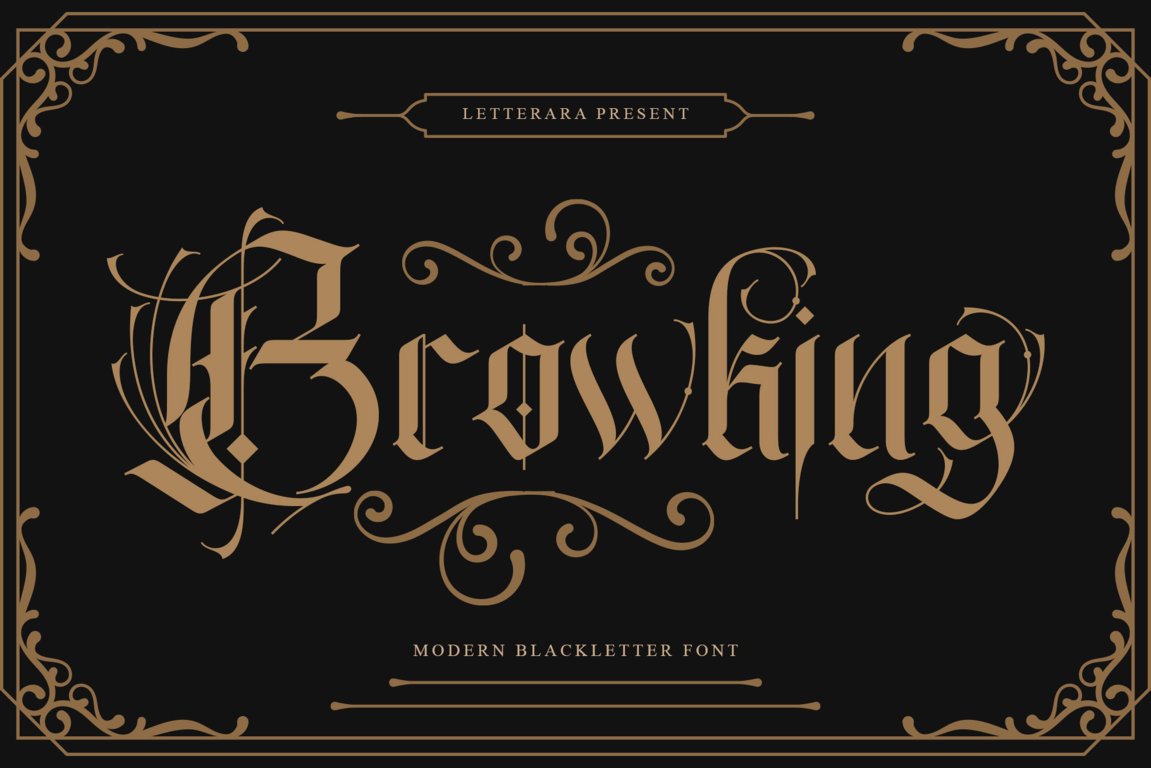
When your design calls for confident energy, this font answers loud and clear. Its bold, unique letterforms bring a striking and distinct touch to any creative work that needs strong typography for a powerful statement.
2. Serath
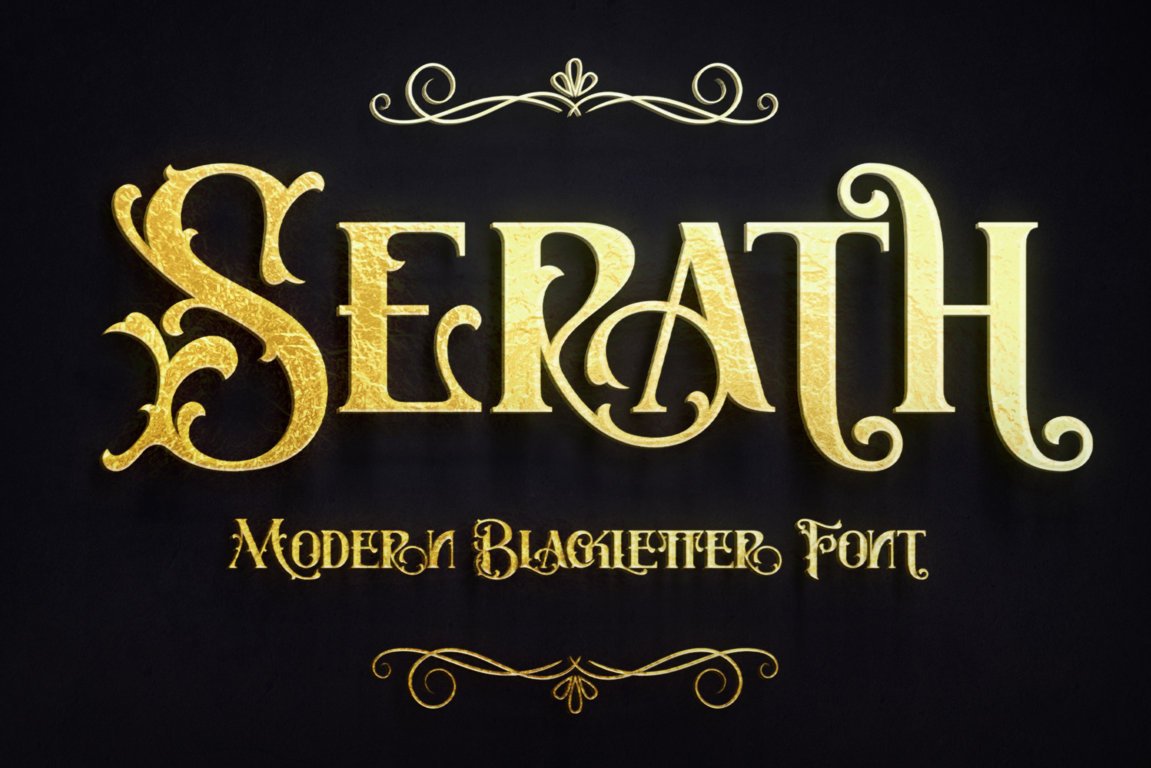
If you own a coffee shop or run a creative brand, Serath is the perfect modern blackletter typeface to make a bold and stylish statement. Its combination of power and elegance commands attention to your design.
3. Higher Jump
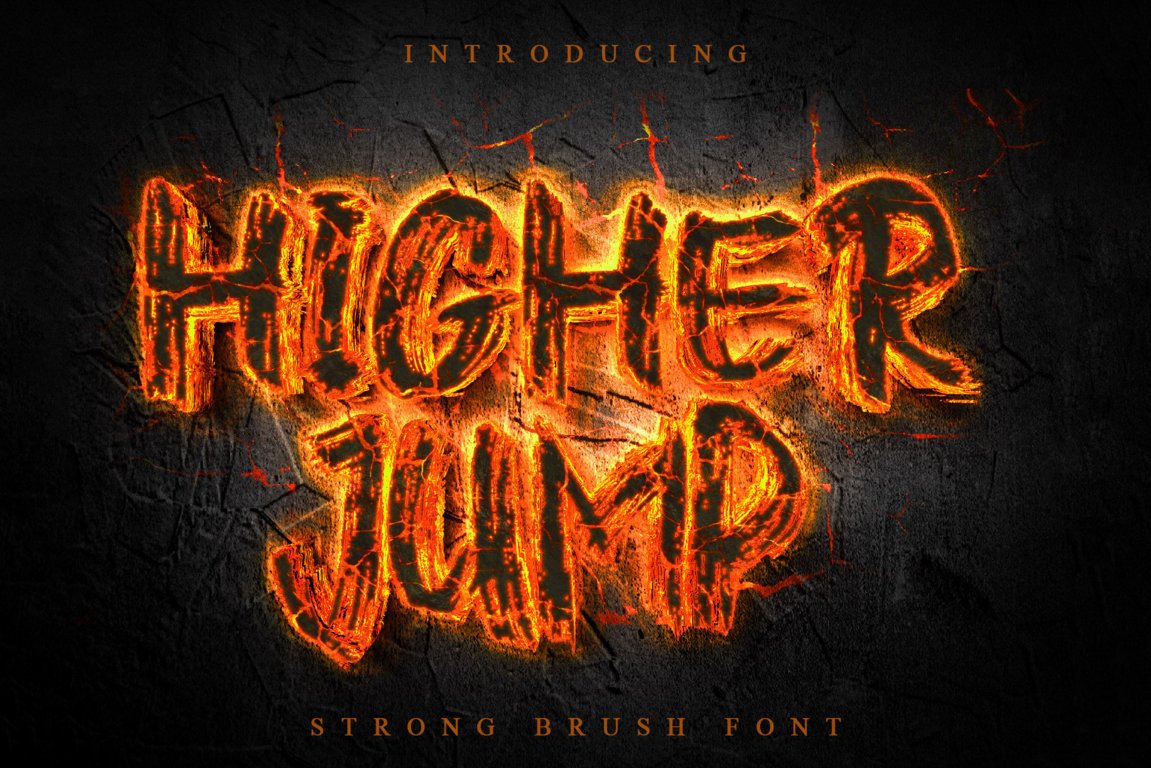
Inspired by natural dry brush strokes, this font brings raw energy and effortless style to your designs. Every curve is full of character, perfect for projects that need a strong and fiery touch.
4. Crowen Zero
Crowen Zero isn’t just a font; it’s a bold statement. Inspired by gothic beauty and raw power, every curve is sharp and attention-grabbing. It’s perfect for designs that need a dark and striking edge, suitable for posters, branding, or album covers.
5. Simbiot
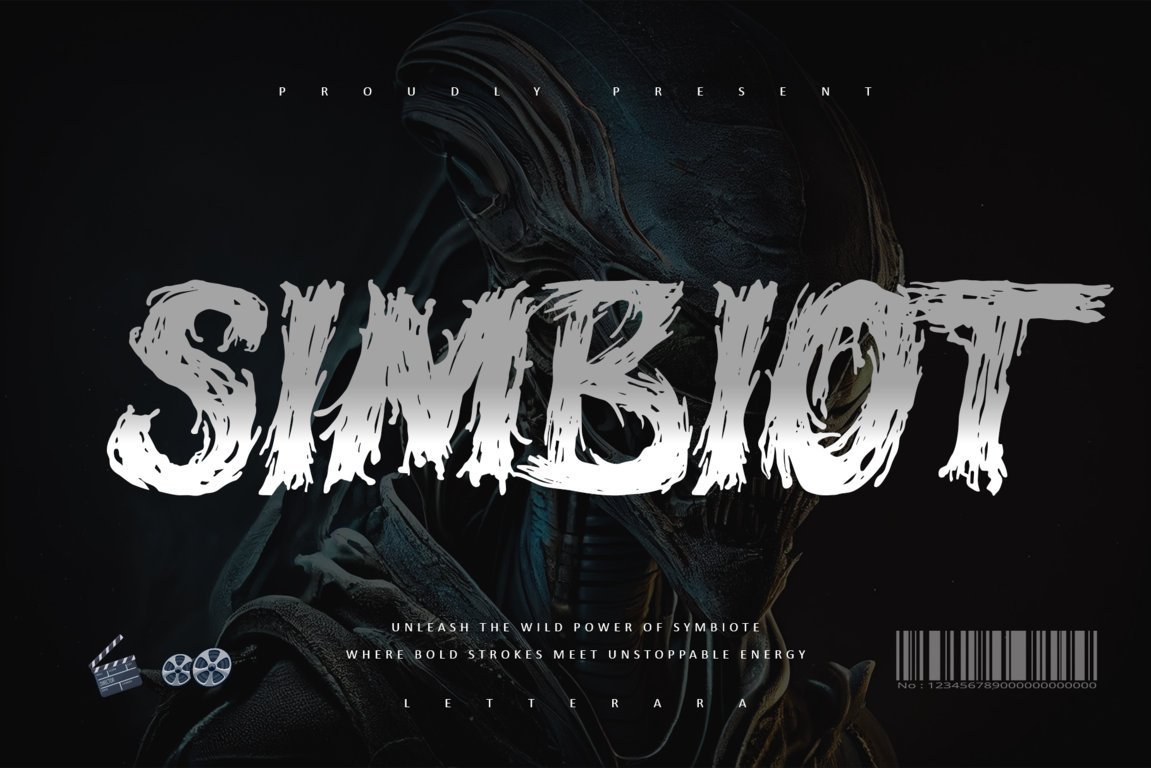
Simbiot is designed to bring bold energy through thick and textured strokes to your work. With its dynamic style letterforms, this font adds a daring edge that brings movement and impact, making your designs feel alive and full of character.
6. Black Dreams
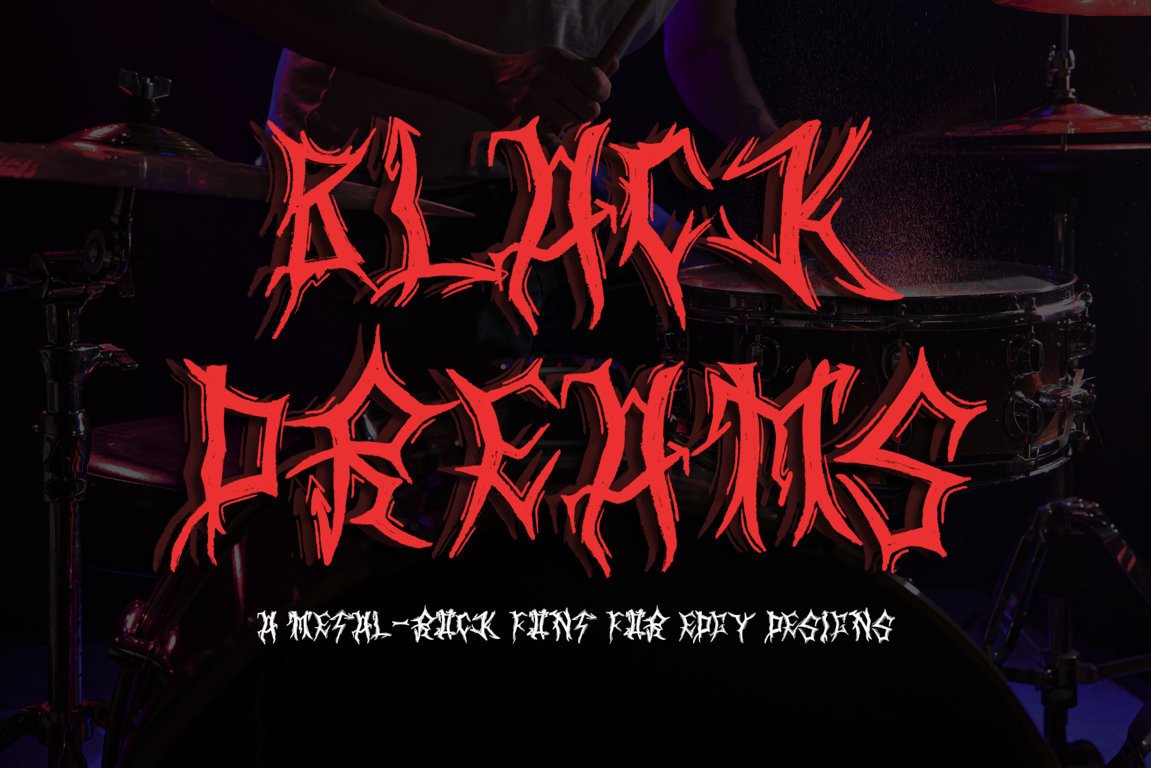
Black Dreams is an edgy, powerful modern blackletter font that captures the unadulterated power of heavy metal. With rugged textures and striking letterforms, it’s built for album covers, band tees, posters, and anything that needs a rebellious attitude.
7. Dreadthorn
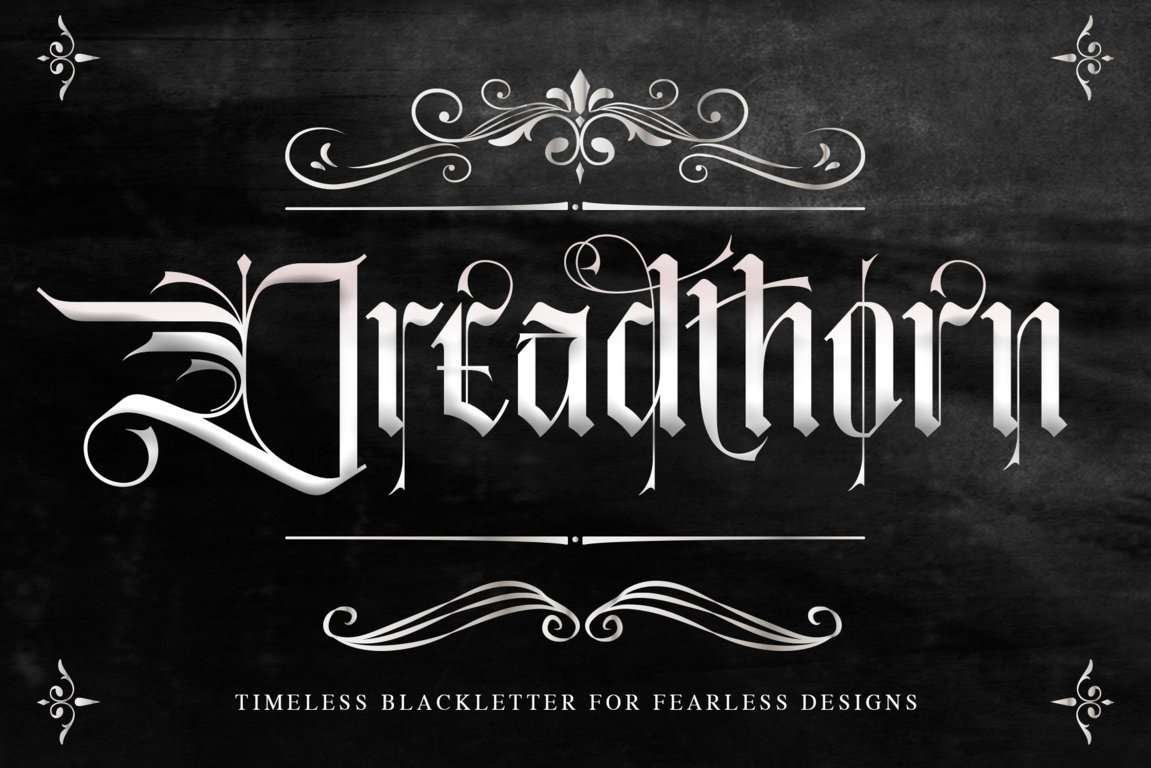
Dreadthorn is a blackletter modern gothic font with ferocious style and jagged strokes. This typeface is able to make your album covers, dark branding, or bold titles unforgettable and powerfully elegant.
8. Dark Majesty
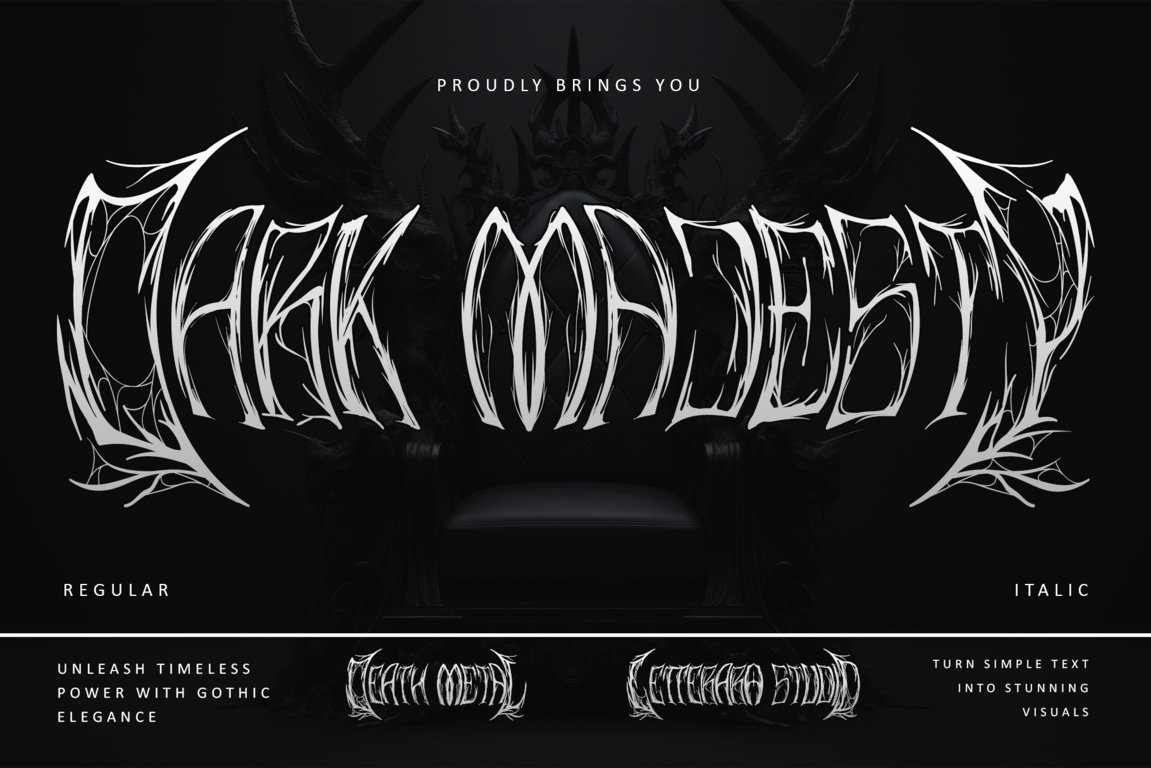
This death metal blackletter font is perfect for adding a touch of darkness and dominance to your design. Built with raw power and gothic style, it features razor-sharp edges and dramatic strokes that bring intense energy to every project.
9. Metalico
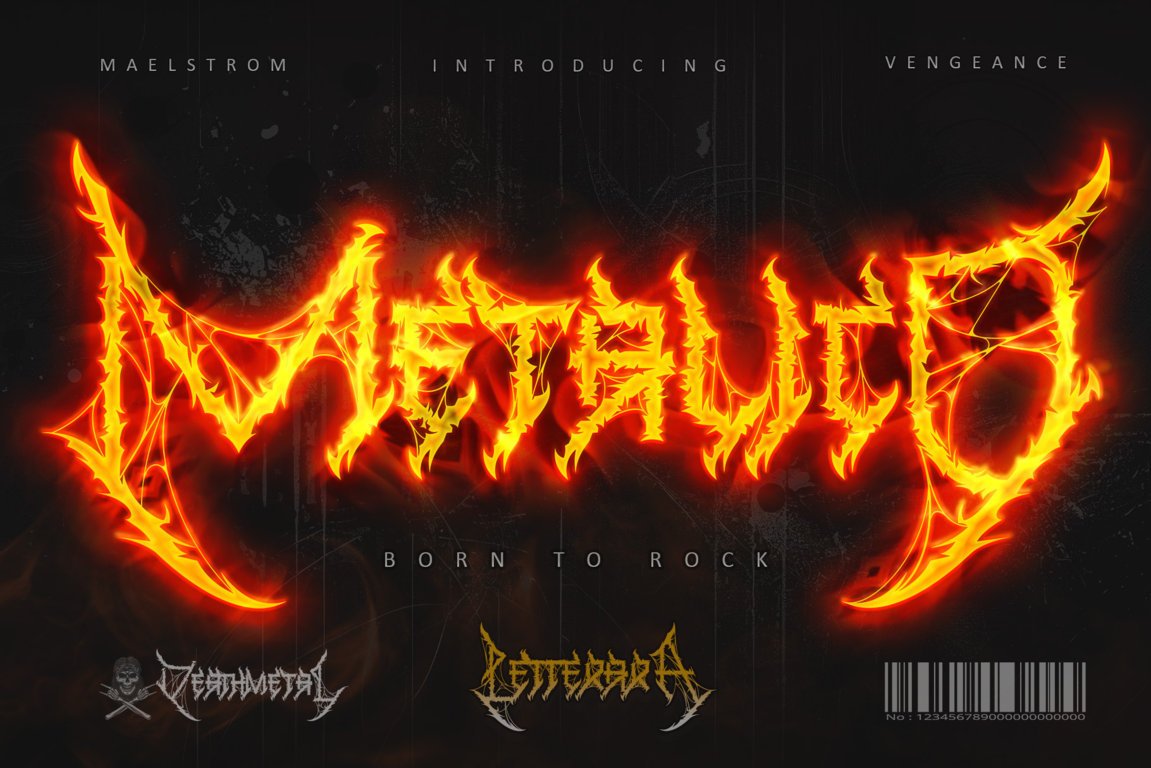
Crank up the intensity with Metalico! It is a bold fusion of metal grit and gothic blackletter style, featuring jagged edges and detailed strokes that bring raw power and dark elegance to your design.
10. Berock
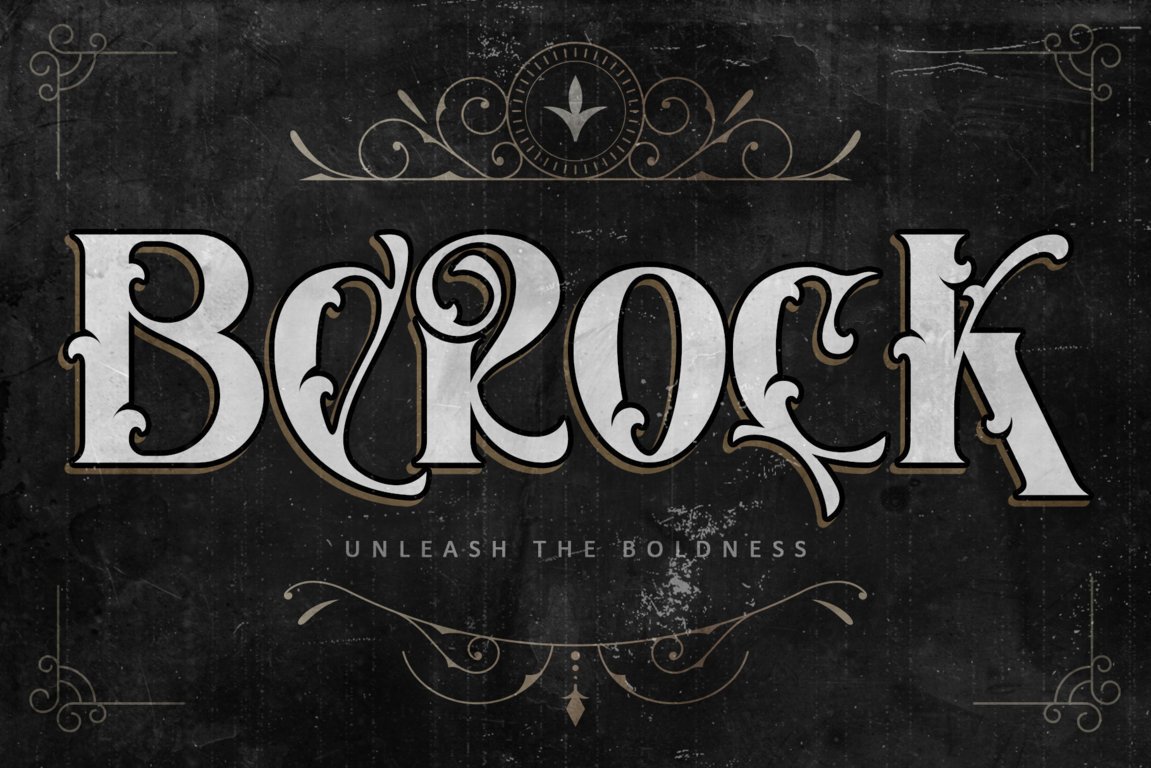
Berock is a chic antique serif font that adds a touch of refinement to any design. Clean, versatile, and packed with alternates and ligatures, it’s perfect for luxury branding and editorials. Creating stunning typography is going to be effortless with this font.
11. Queenlord
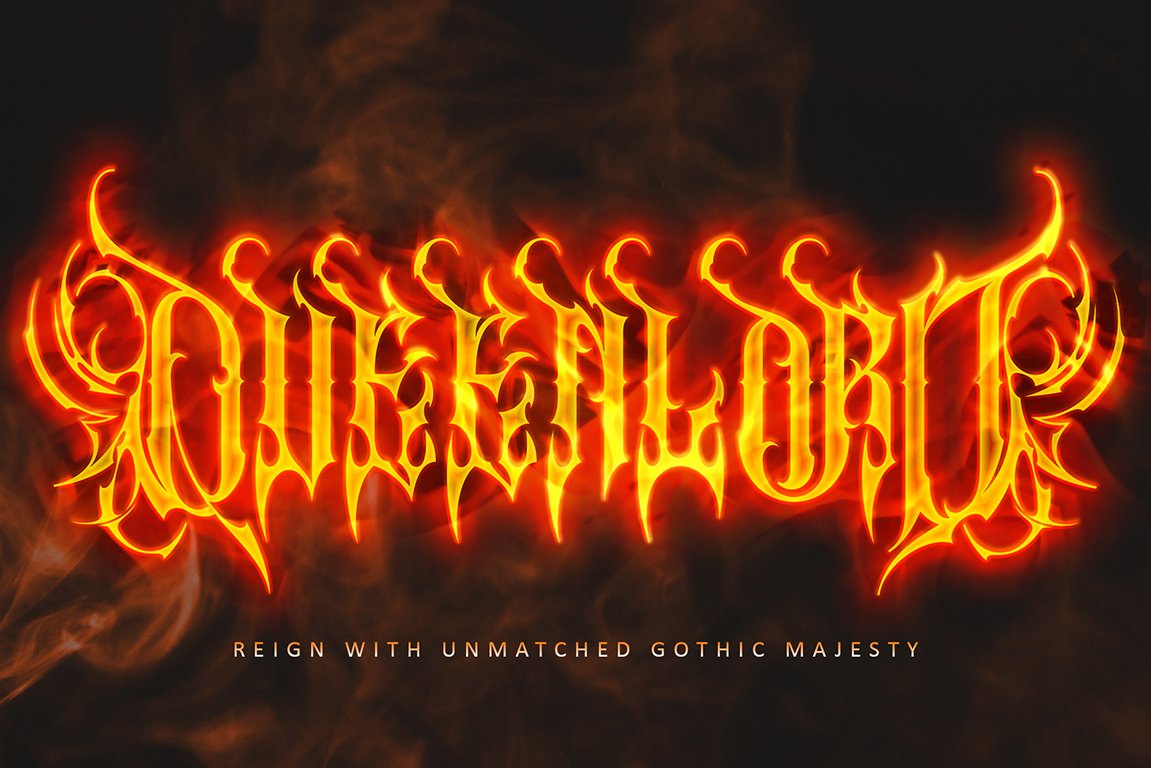
Enter the world of Queenlord, a gothic typeface where strength and elegance come together effortlessly. Crafted to make a statement, it adds a majestic, eye-catching vibe to any design. Queenlord is perfect for logos, titles, or poster designs that bring a classic and majestic feel.
12. Angel Fortune
Angel Fortune is a mesmerizing modern blackletter font that combines bold elegance with a touch of prosperity. Its detailed, confident strokes bring a refined edge for luxury packaging, high-end branding, and standout creative projects.
13. Quillstone
Easy to read yet full of character, it stands out as one of the best blackletter fonts for designs that need both style and impact. Whether for branding or body art, Quillstone adds timeless charm and edgy elegance to every design.
14. Blacker Spirit
This modern blackletter font blends bold elegance with unique character shapes, making it perfect for elevating packaging, branding, and other creative projects. Let it bring striking results to your design work.
15. Blacksiny
When your designs can rock with personality, why settle for ordinary? Meet Blacksiny, a bold, metal-inspired font that captures the raw energy of heavy music. Completed with rugged textures and rebellious glyphs, Blacksiny makes a bold statement loud and proud.
16. Brigker
Its uniquely shaped letters draw inspiration from blackletter font history, giving your designs a timeless yet daring edge. Brigker is perfect for product packaging, branding, and any project that needs a strong visual impact.
Find the Perfect Modern Blackletter Font Style for Your Design!